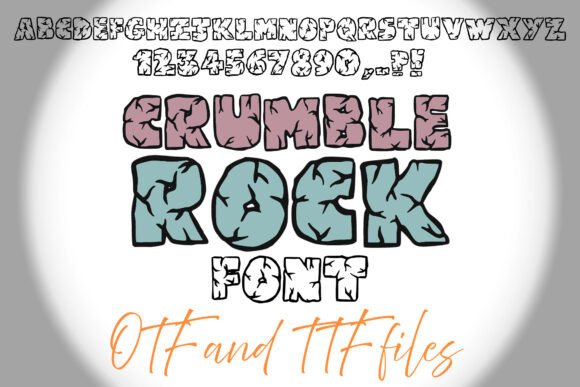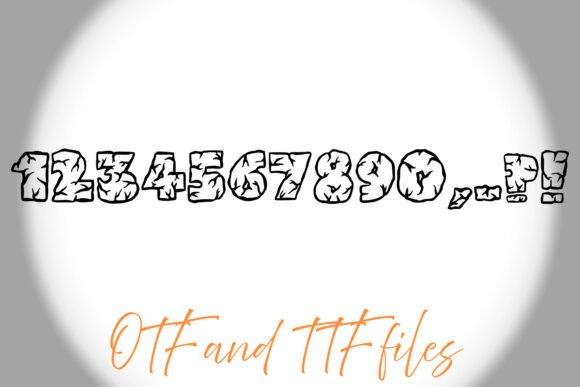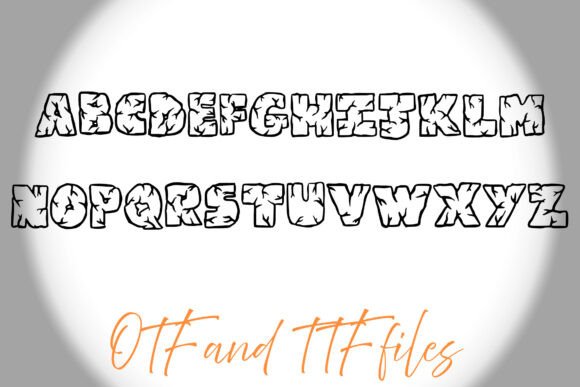
Crumble Rock Font
About the Crumble Rock Font
We are excited to introduce Crumble Rock Font, a must-have typeface for any serious designer. Crumble Rock is a rugged, textured display font that mimics the rough, cracked appearance of weathered stone. With its bold and distressed lettering, it’s perfect for projects that need a raw, edgy, and adventurous vibe, from posters to branding with attitude.
Crumble Rock excels in headline applications, short impactful phrases, and logo design where its bold texture creates a strong visual identity. It’s ideal for brands conveying ruggedness, adventure, or a handcrafted aesthetic—think outdoor gear, craft breweries, or rock music. Avoid using it for body text or lengthy paragraphs; its texture can be difficult to read at smaller sizes.
Pairing Crumble Rock with a clean sans-serif like Montserrat for body copy provides a strong contrast, balancing the font’s raw texture with readability. Alternatively, a more delicate script font could add a touch of unexpected sophistication, while a geometric sans-serif would emphasize the font’s bold structure.
Crumble Rock’s core personality is bold, rebellious, and undeniably rugged. Its distressed quality conveys a sense of authenticity and history.